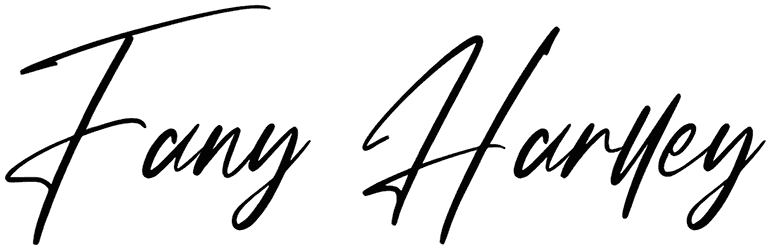
Fany Harlley Font
Display your absolute luxury typography with this delicate handwritten signature script font! The elegant pen brush characters of Fany Harlley are stunning, they convey a realistic feel. Manipulate this fantastic font in your projects to maintain a modern typography that has a unique artistic design.
Fany Harlley contains a complete set of professional letterforms that each of which has a friendly individual personality. Include it in cards, branding, magazines, clothing, fashions, or wherever you wish, and see how it will shine!